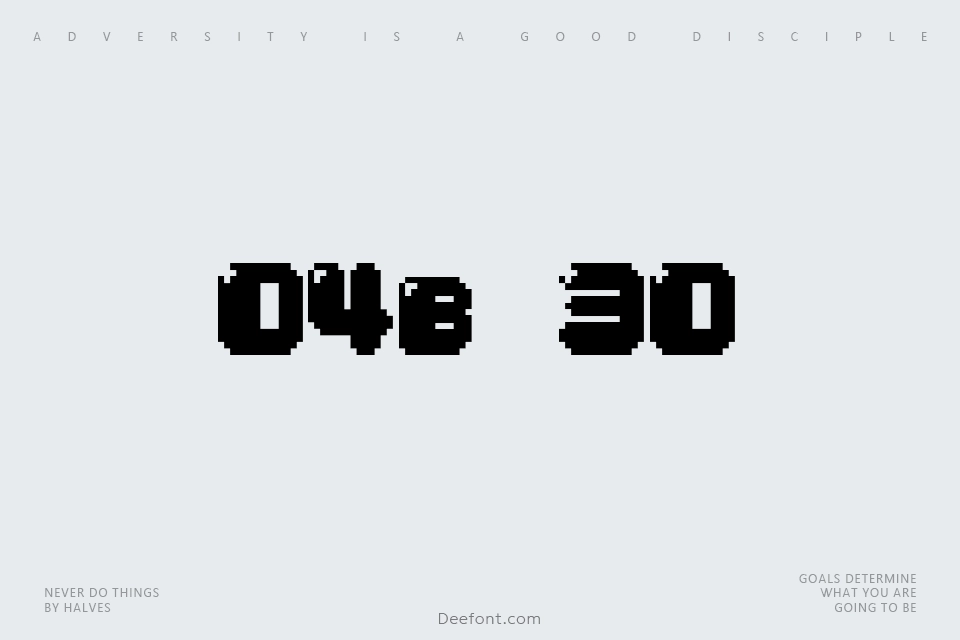
04b_30 Font
04b_30 is a distinctive pixel bitmap font created in 2000 that delivers authentic retro digital aesthetics. This minimalist typeface features a compact 16-pixel design, making it ideal for vintage-inspired projects, gaming interfaces, and digital displays. With its clean geometric letterforms and characteristic blocky appearance, 04b_30 brings nostalgic charm to any creative endeavor. The font has been downloaded over 1.7 million times, establishing itself as a beloved choice among designers seeking authentic pixel-based typography that evokes early computing and arcade gaming eras.